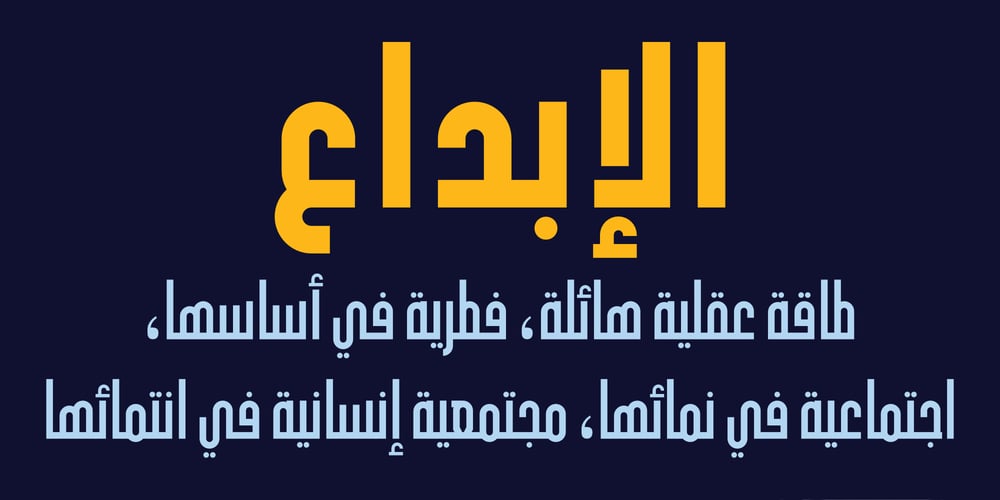
HS Almohandis Font Family was designed by Hasan Abu Afash and published by Hiba Studio. HS Almohandis contains 2 styles and family package options. HS Almohandis is an Arabic display typeface. It is useful for book titles and graphic projects where a contemporary, streamlined look is desired. The font is based on the simple lines of modern and simplified Kufi calligraphy, that support Arabic, Persian and Urdu. This font was created in the beginning as regular weight with the font HS Alhandasi in 2007 for use in technical and engineering company. The company tends to follow the geometrical shape with equal dimensions in both vertical and horizontal storks. There is also a tendency to make all characters to be similar to oval shape with the impression that they are all geometrical and clear. I followed that with Bold weight in 2011. The difference between this font and HS Almohandis is that its characters have a sharp baseline.